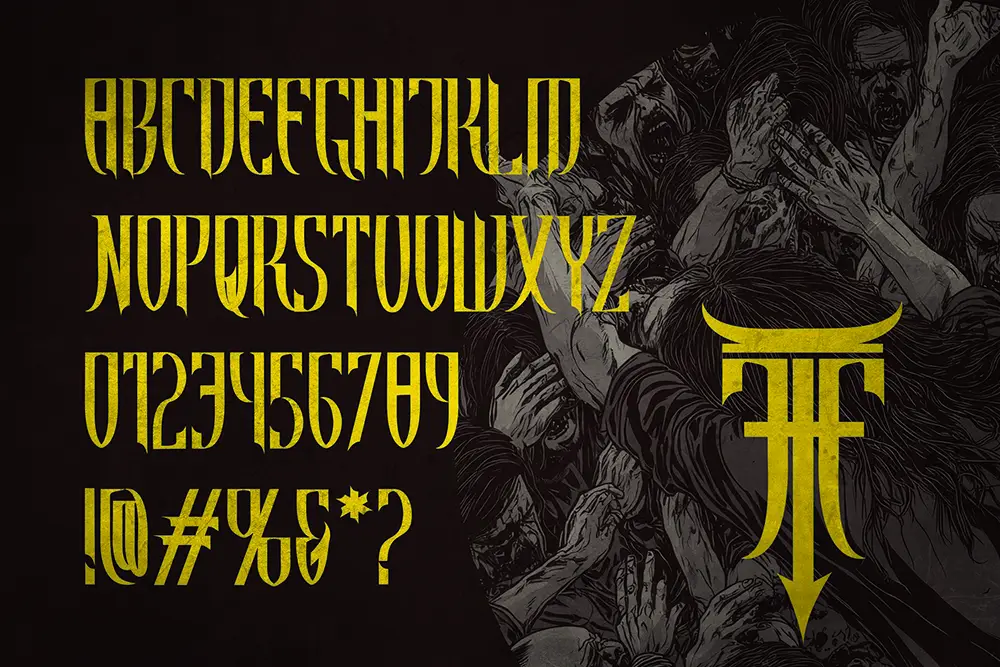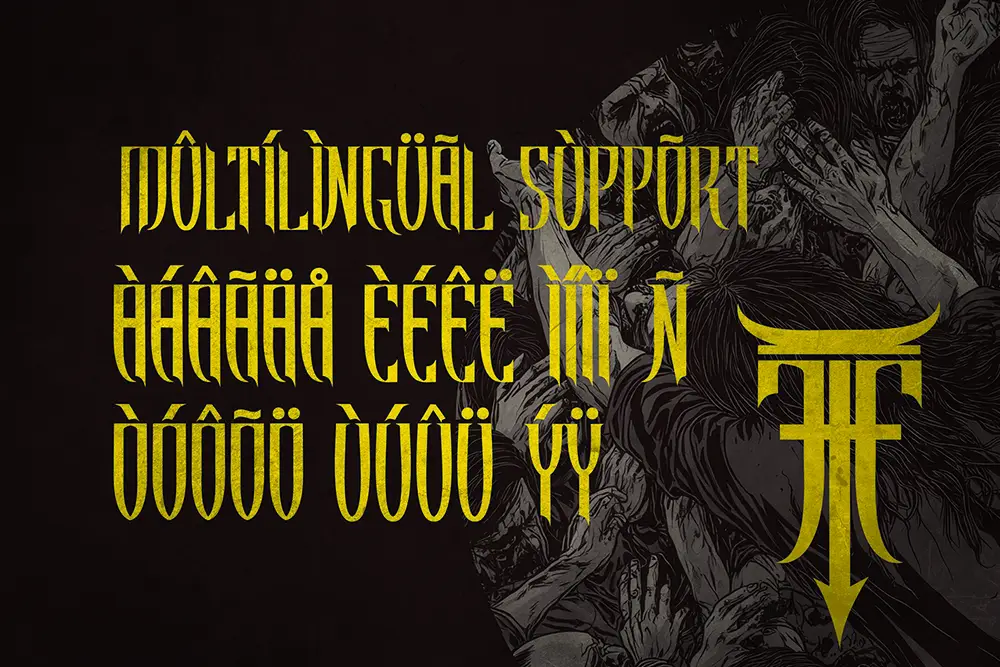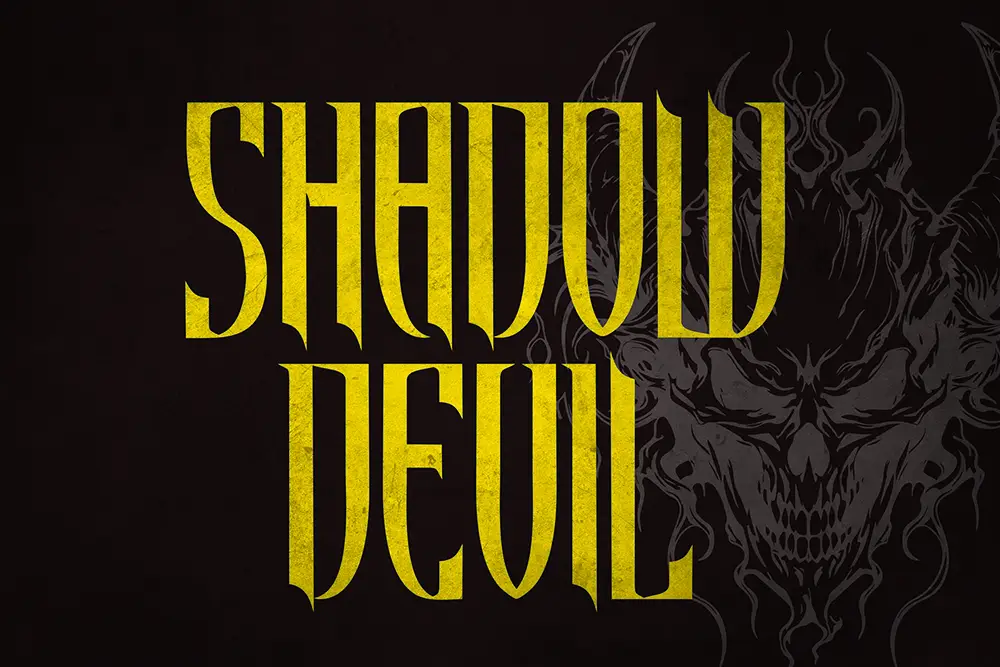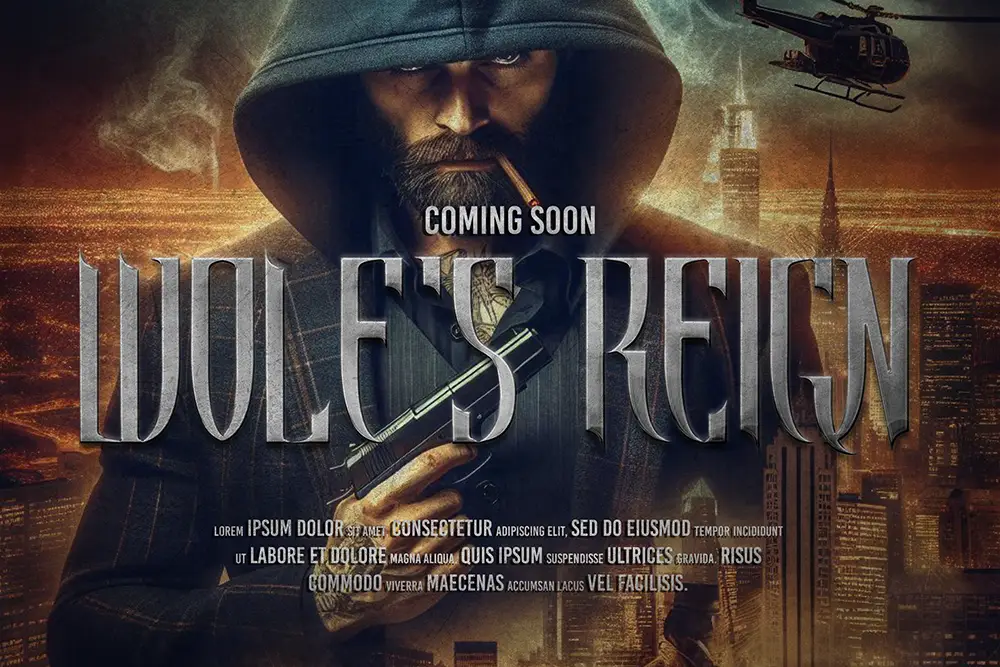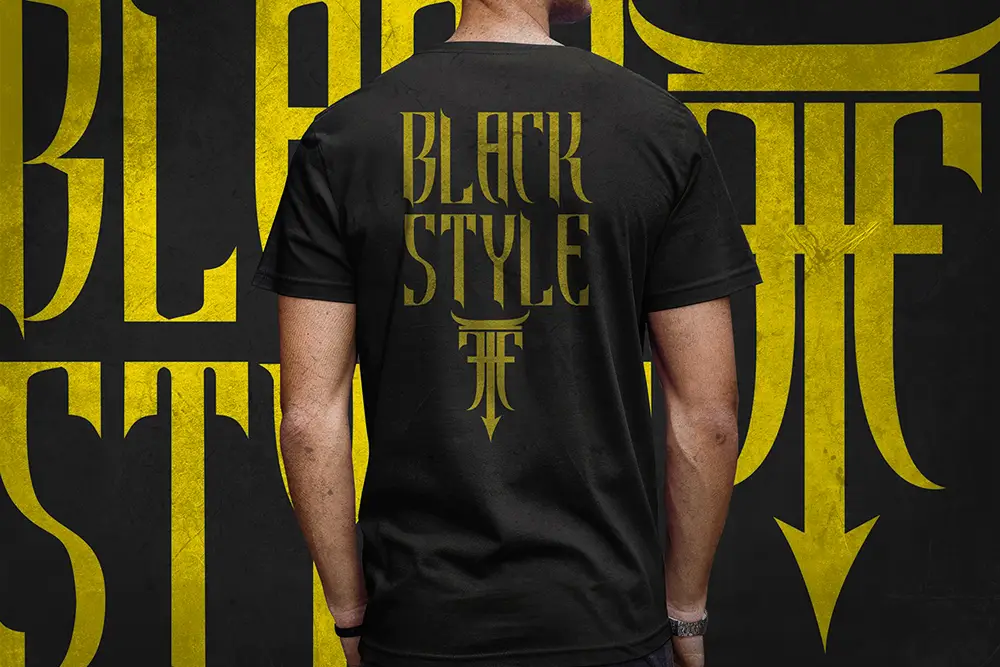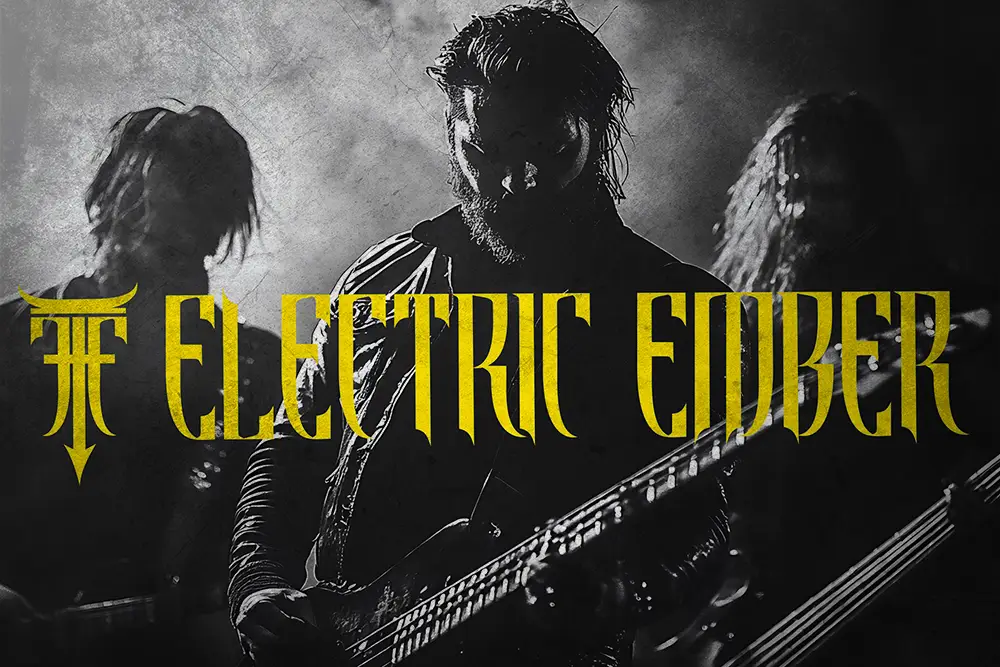
Death Wolfker – Powerful Blackletter Font for Bold Gothic Design
Typography defines the soul of design, and nothing speaks louder than a powerful blackletter font. Death Wolfker – Powerful Blackletter Font is crafted to channel gothic strength, medieval aesthetics, and bold modern edge into any creative project. With all-caps characters, sharp strokes, and detailed gothic forms, Death Wolfker dominates attention in logos, posters, tattoos, and heavy branding.
This powerful blackletter font isn’t just about decoration—it’s about commanding presence. From digital artworks to print campaigns, Death Wolfker ensures your designs roar with authority.
Powerful Blackletter Font with Gothic Energy
Death Wolfker is a powerful blackletter font inspired by historical blackletter traditions but sharpened for modern creative use. The bold all-caps letters create a sense of intensity and grandeur, perfect for projects where strength and dominance matter.
Whether you’re designing music festival posters, fantasy game logos, or bold merchandise graphics, Death Wolfker delivers the power of gothic lettering with modern readability.
Key Features of Death Wolfker – Powerful Blackletter Font
Professional designers look for reliability and versatility. Here’s what makes Death Wolfker – Powerful Blackletter Font stand out:
- Uppercase All Caps: Bold blackletter design for maximum impact.
- Multilingual Support: Extended Latin characters for global usage.
- Powerful Gothic Energy: All caps styling inspired by medieval calligraphy.
- Sharp Blackletter Aesthetic: Intricate strokes and bold outlines.
- Ideal for Display Use: Perfect for posters, logos, headlines, and event branding.
Why Designers Love Death Wolfker
Designers embrace Death Wolfker because it captures what a powerful blackletter font should be: dramatic, bold, and versatile.
- Instant Authority: All caps design demands attention on posters and covers.
- Gothic Authenticity: Inspired by medieval calligraphy with modern clarity.
- Flexible Use: Works equally well for music branding, games, and bold advertising.
- Font Pairing Options: Looks stunning with serif companions like Kastroz Luxury Vintage Serif Font.
Death Wolfker for Logos and Branding
Logos that aim to be bold and unforgettable thrive on blackletter. As a powerful blackletter font, Death Wolfker is ideal for branding heavy music, gothic apparel, fantasy games, or cultural festivals. Its commanding uppercase style ensures logos feel intense, professional, and unique.
Pairing it with modern serif fonts like Kastroz balances gothic energy with timeless sophistication.
Death Wolfker for Posters and Headlines
Posters need dramatic presence. Death Wolfker provides that with bold strokes and gothic shapes that dominate layouts. As a powerful blackletter font, it thrives in headline use, making concert posters, tattoo shop banners, and movie promotions feel more impactful.
Its sharp details and extended spacing ensure visibility even at large scales.
Death Wolfker in Digital Media
Digital branding thrives on typefaces that stand out in fast-scrolling feeds. Death Wolfker is the perfect powerful blackletter font for YouTube banners, gaming thumbnails, and social media visuals.
Its gothic tone makes designs look distinct and memorable, appealing to audiences who crave something raw and bold.
- Character Set: Uppercase All Caps, Numbers, Punctuation
- Multilingual Support: Yes
- Category: Powerful Blackletter Font
- Best Uses: Logos, Posters, Tattoos, Gaming, Digital Media, Branding
Font Pairing Suggestions
Pairing is key to making the most of a powerful blackletter font. Death Wolfker pairs best with:
- Kastroz Luxury Vintage Serif Font – balances gothic blackletter weight with elegant serif details for a bold yet refined look.
This combination lets designers create layouts that feel gothic yet modern, making Death Wolfker adaptable across branding and event promotions.
Why Death Wolfker is a Must-Have
Typography trends always come back to bold authenticity. Death Wolfker represents that perfectly. As a powerful blackletter font, it provides the gothic authority of medieval calligraphy while staying readable and modern for today’s designers.
From logos and posters to digital banners, Death Wolfker brings unmatched presence. Its OTF, TTF, and WOFF formats plus multilingual support ensure it’s future-ready and globally functional.
Death Wolfker – Powerful Blackletter Font is not just a typeface. It’s a declaration of strength, dominance, and gothic energy. With all caps design, multilingual support, and professional file formats, it’s the font of choice for designers who need power in every word.
Pair it with Kastroz Luxury Vintage Serif Font to create unforgettable contrasts, or use it solo to unleash pure gothic impact.
If your goal is to design with authority, intensity, and style, Death Wolfker is the powerful blackletter font your projects demand.